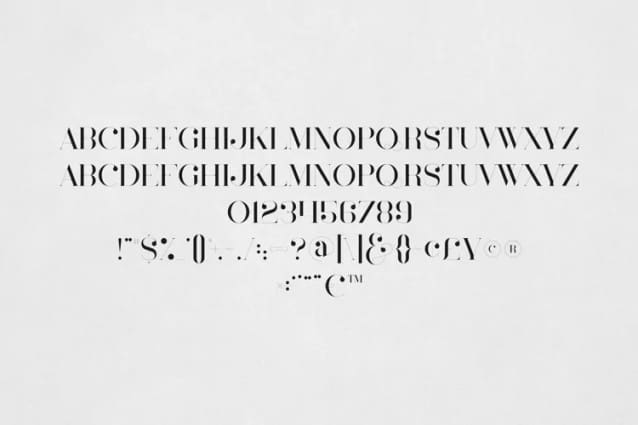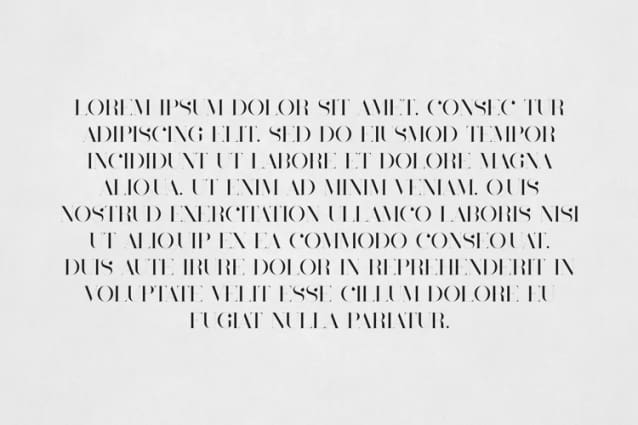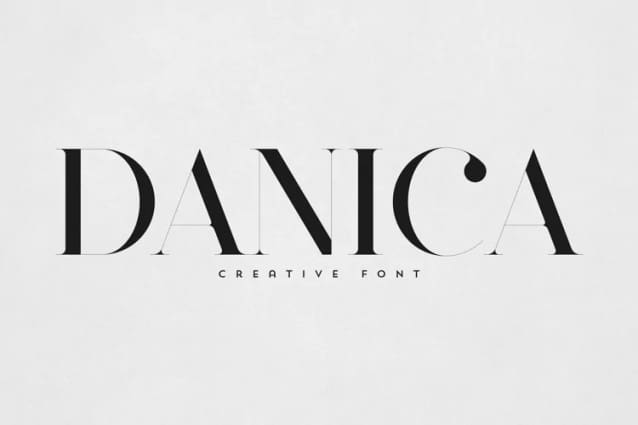
Danica Font
Danica Font is an elegant and versatile font that will make your typography truly unique! It will enchant every logo, branding, headline, or plain text!
This font is perfect for branding projects, home-ware designs, product packaging, magazine headers – or simply as a stylish text overlay to any background image